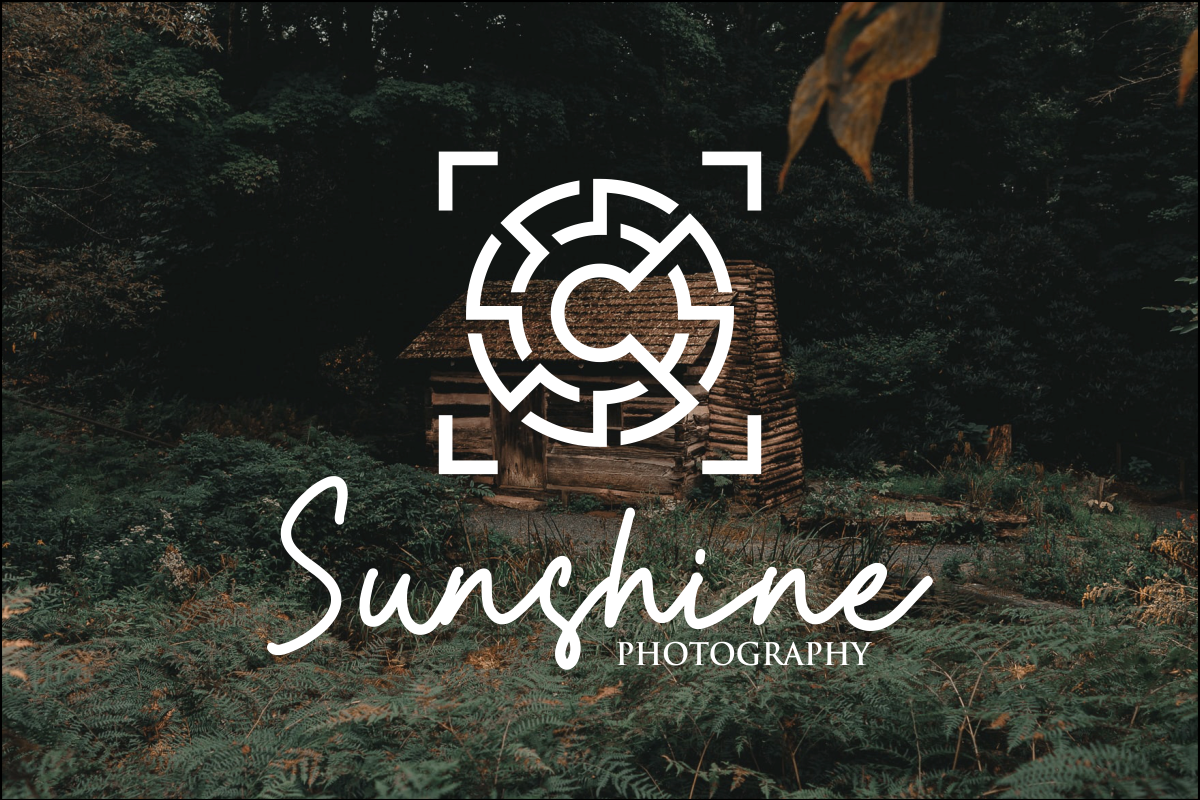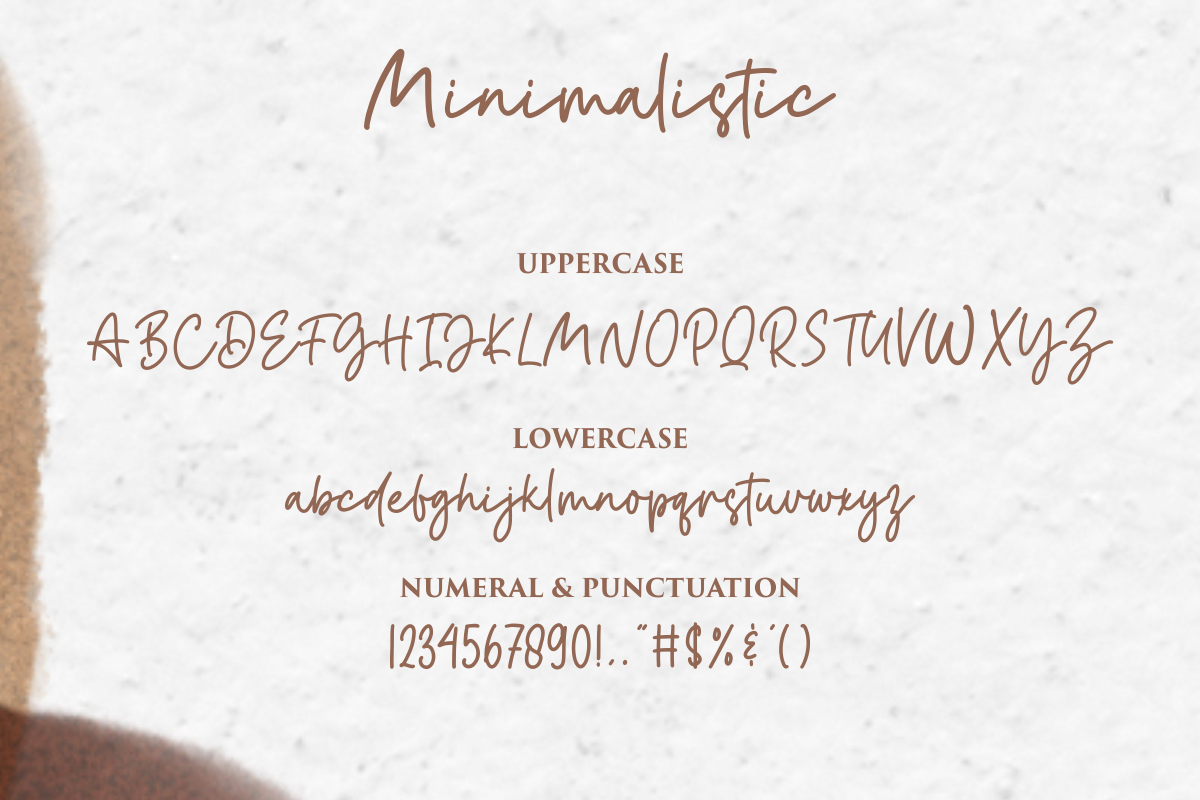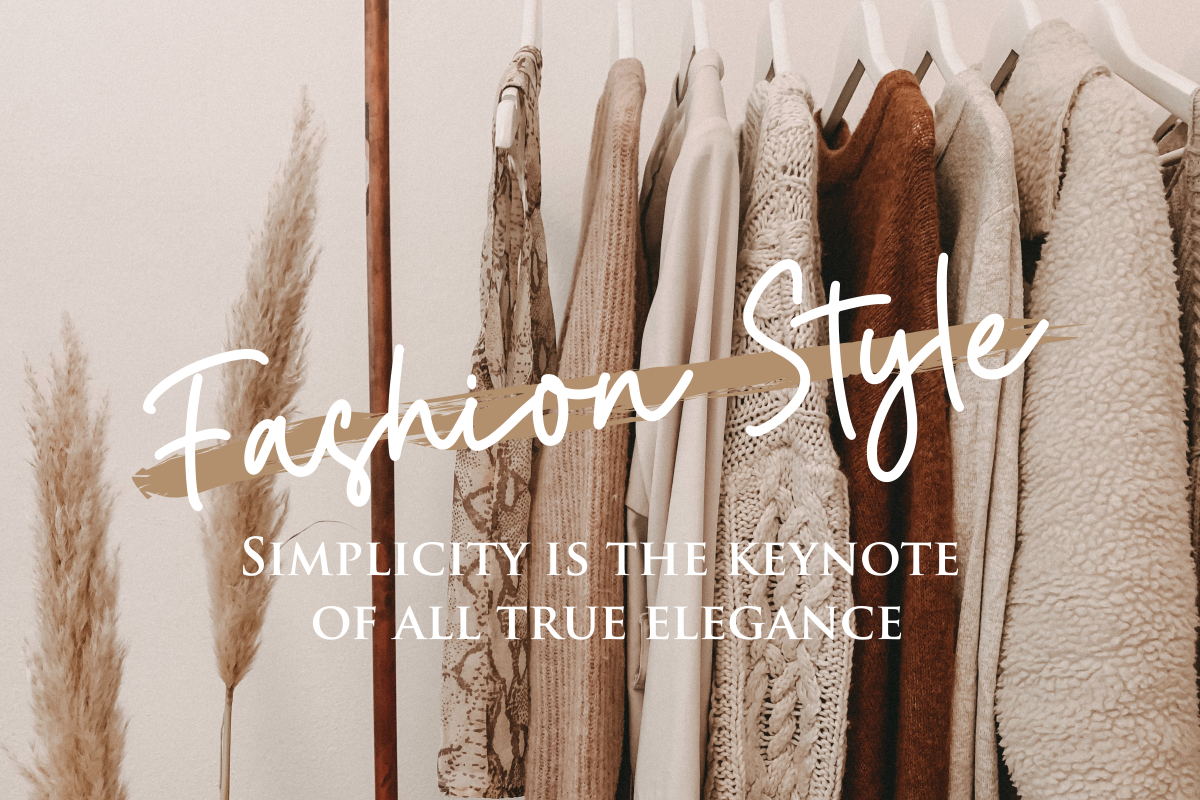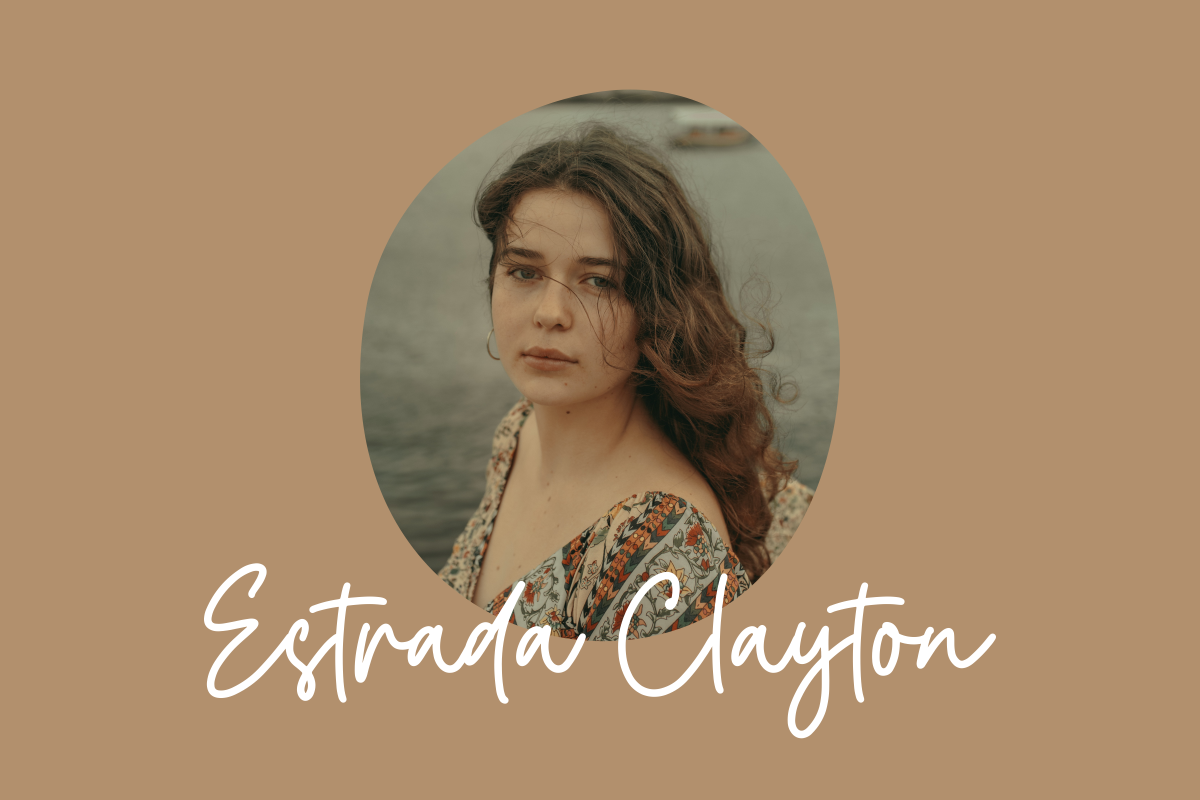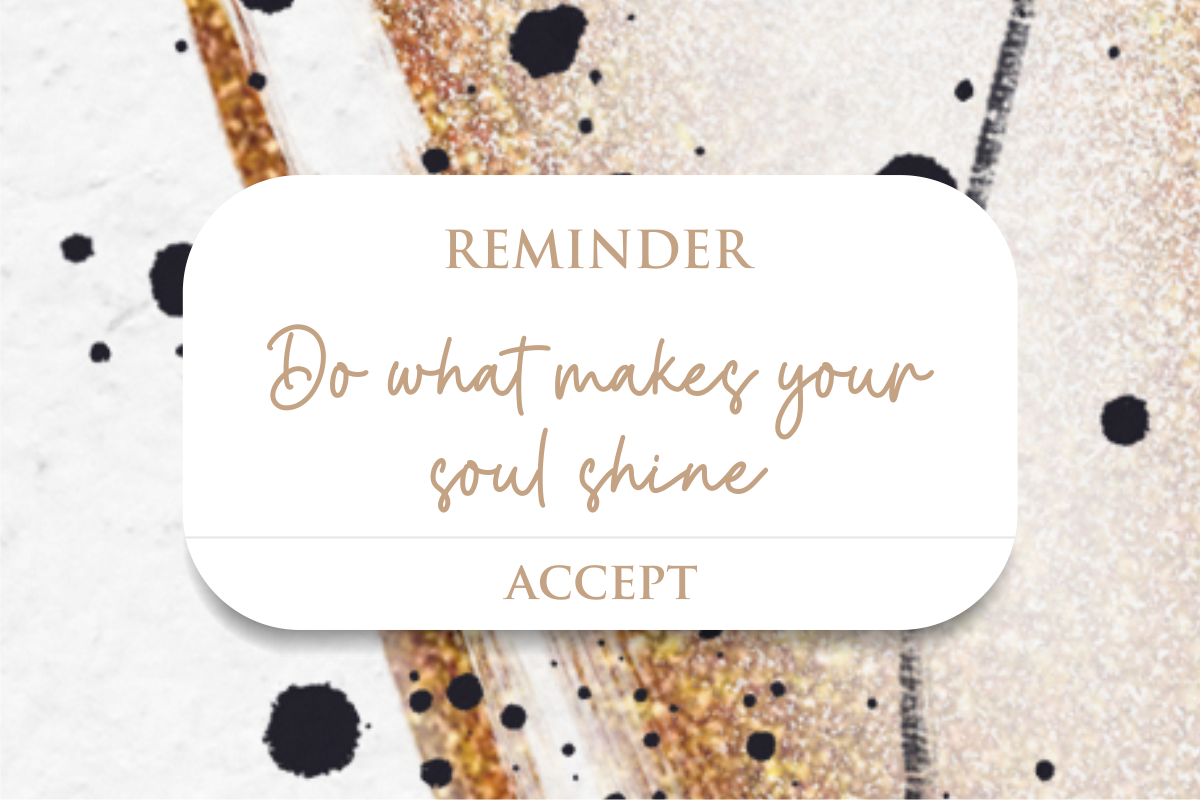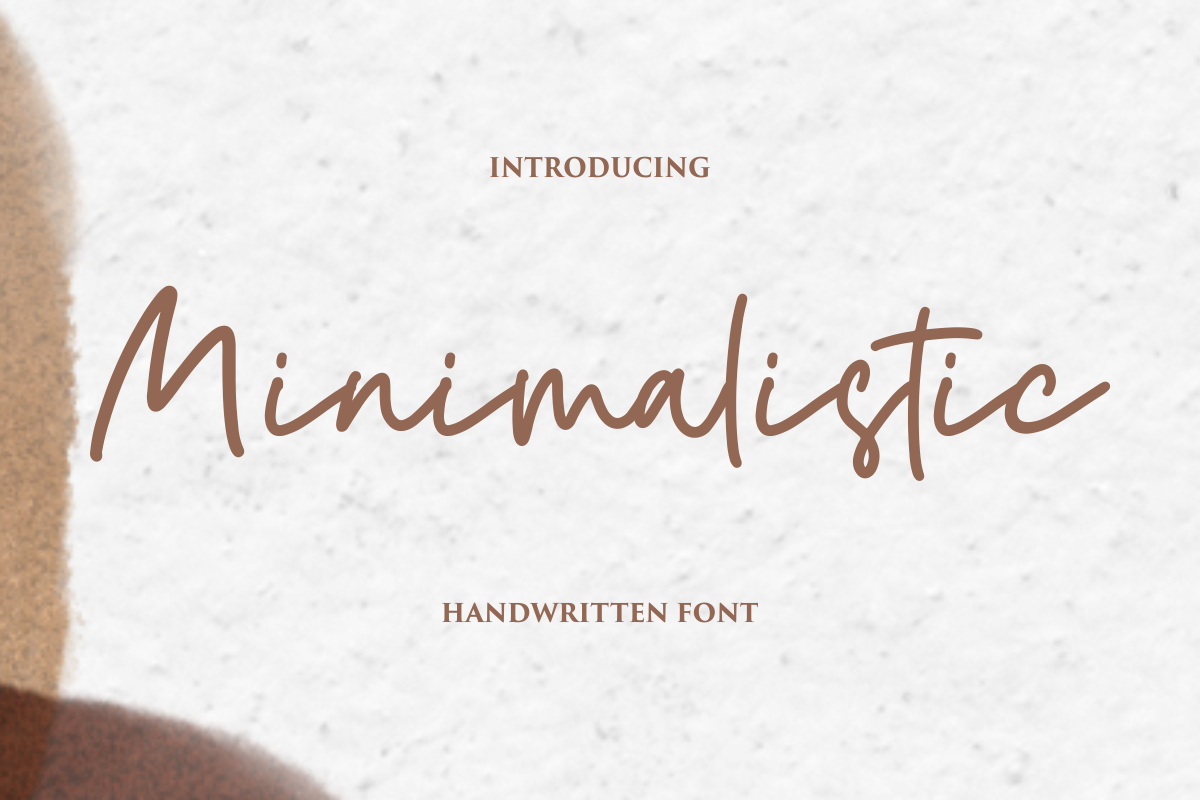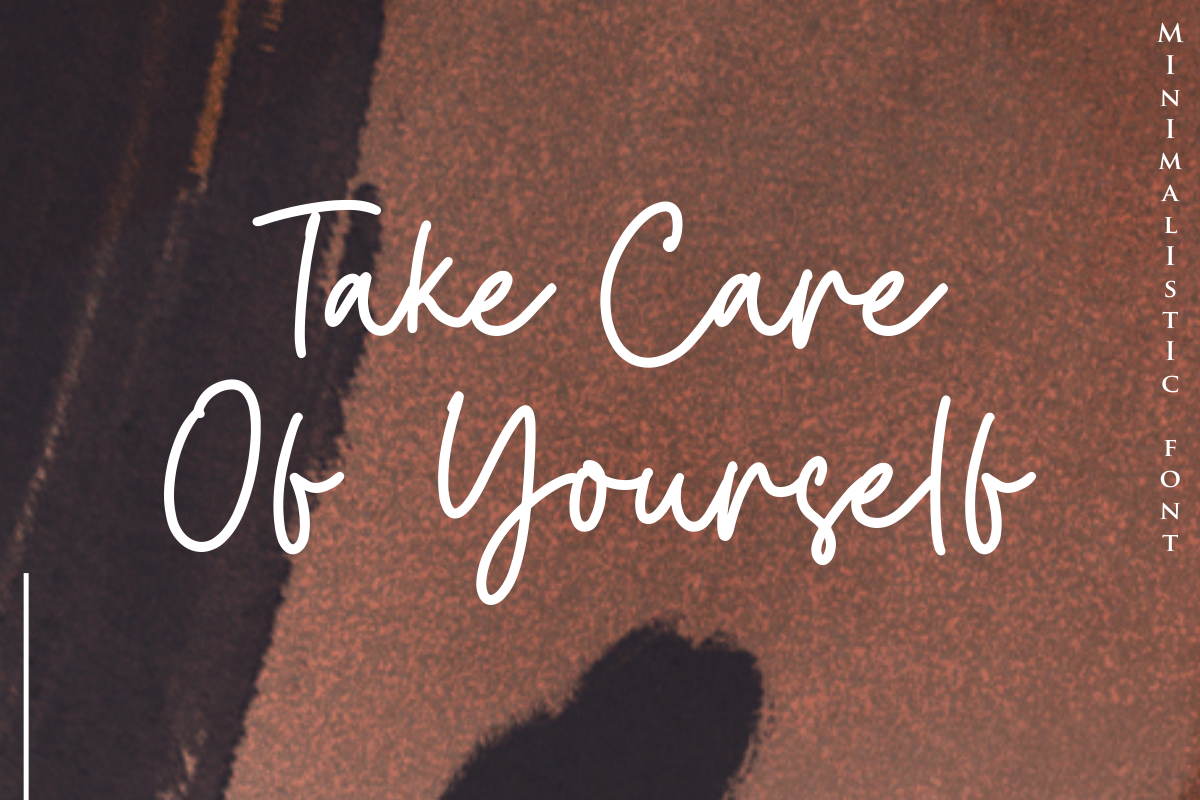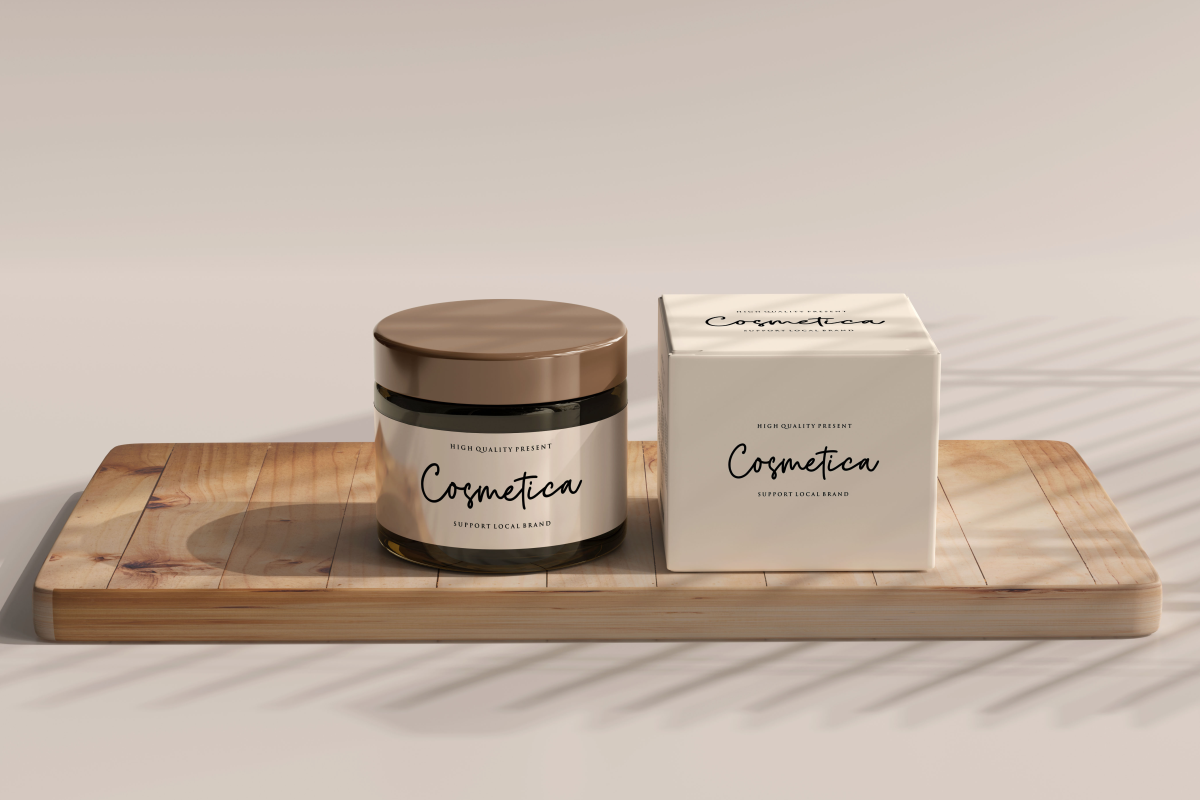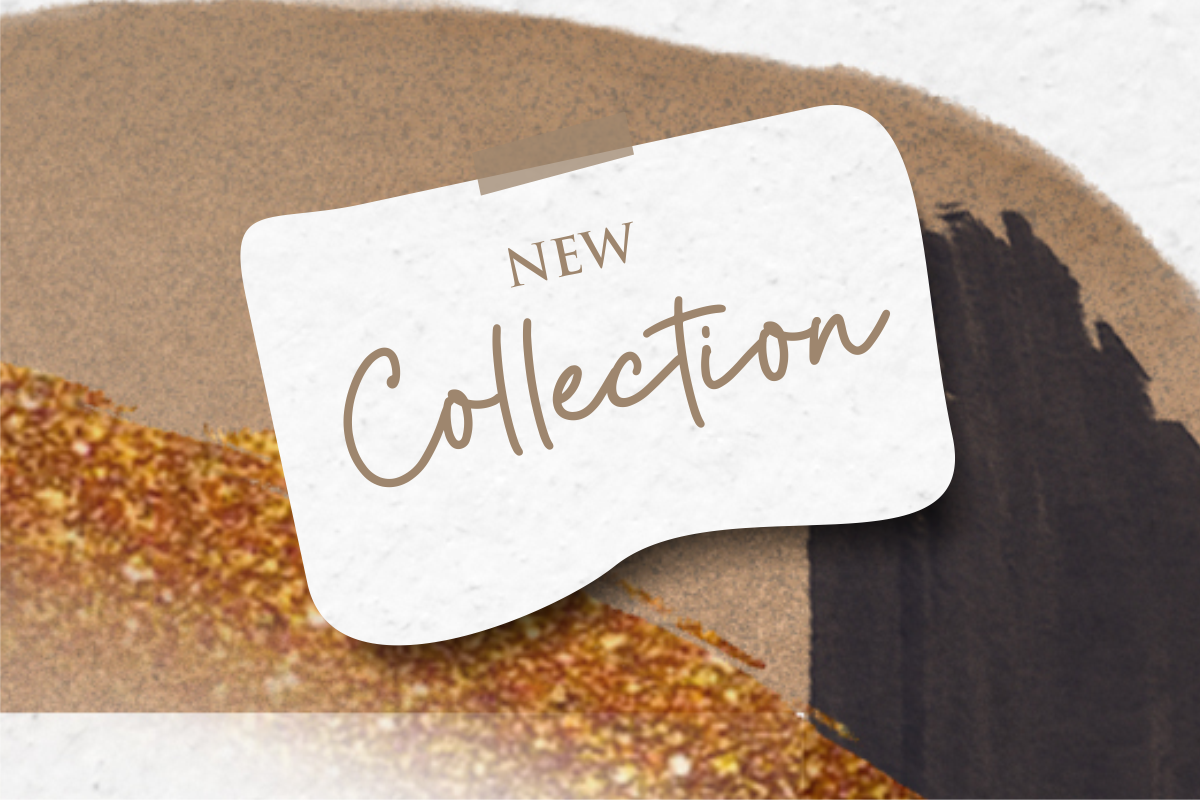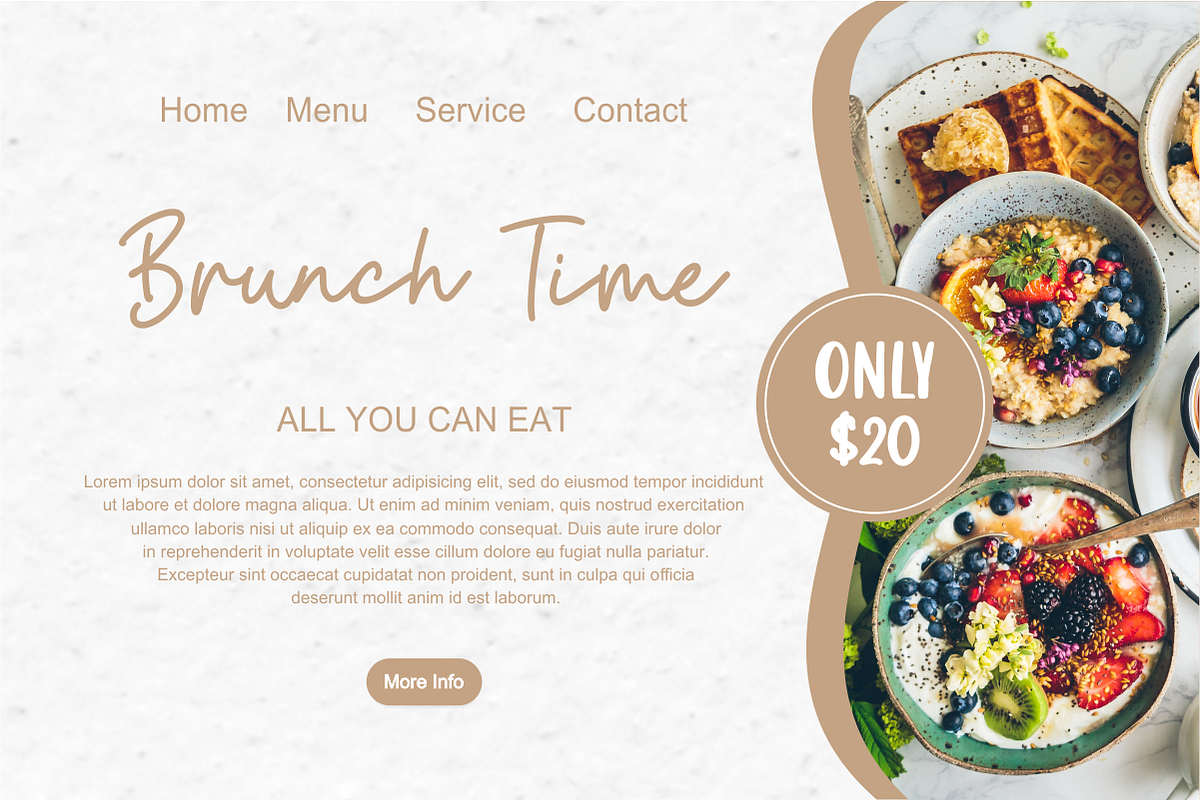
Minimalistic - Handwritten Font
Minimalistic is a new stylish handwritten font, this font Is perfect for logos, invitations, stationery, wedding designs, social media posts, advertisements, product packaging, product designs, label, photography, watermark, special events, or anything.
Minimalistic comes with a full set of uppercase and lowercase letters, multilingual symbols.